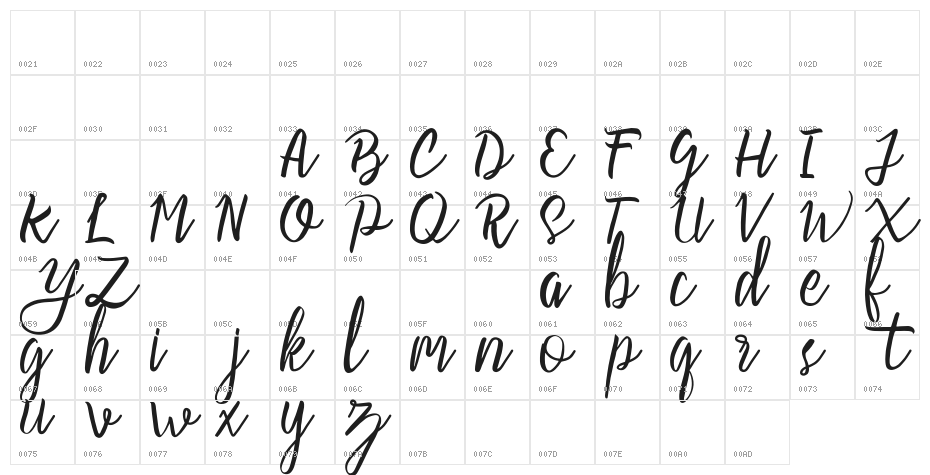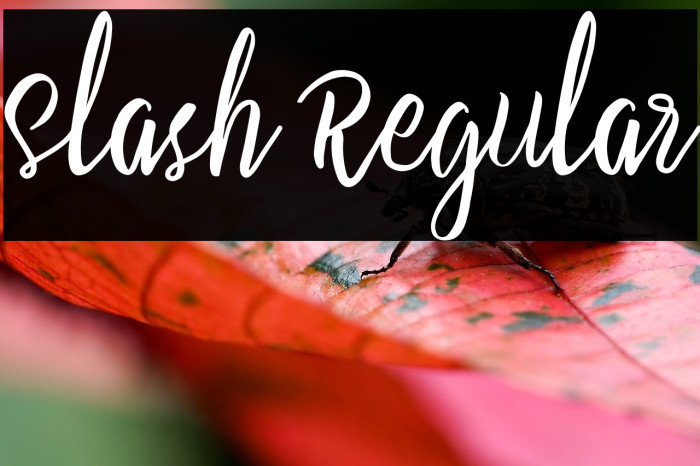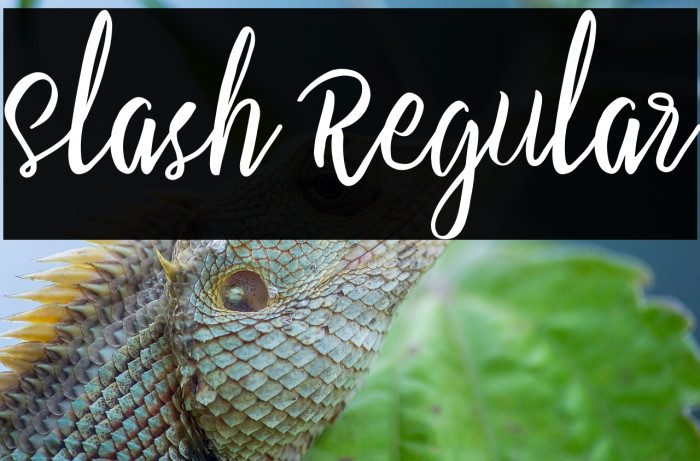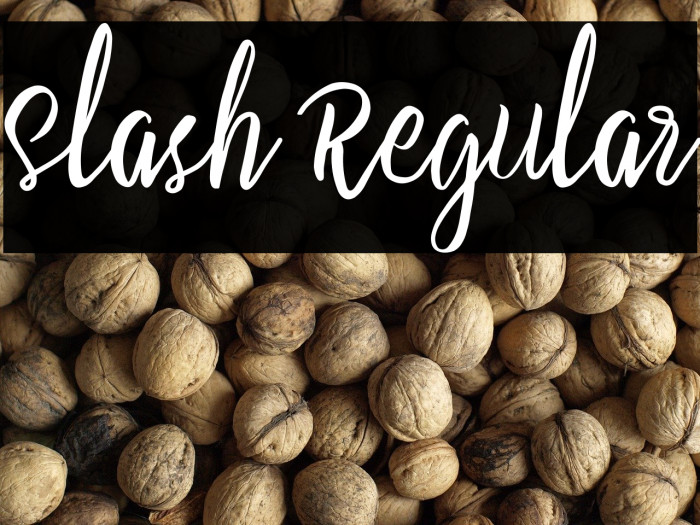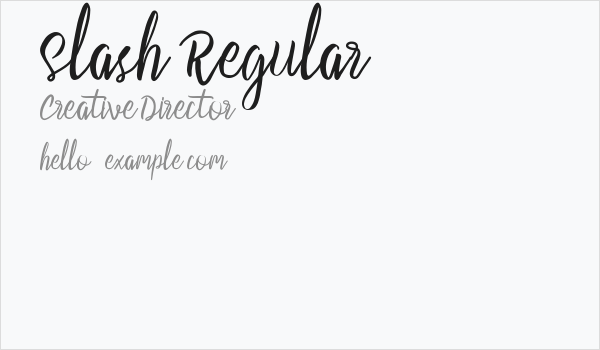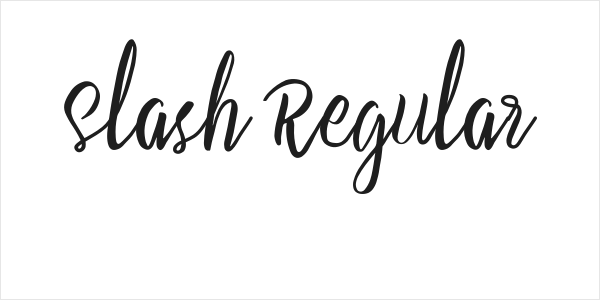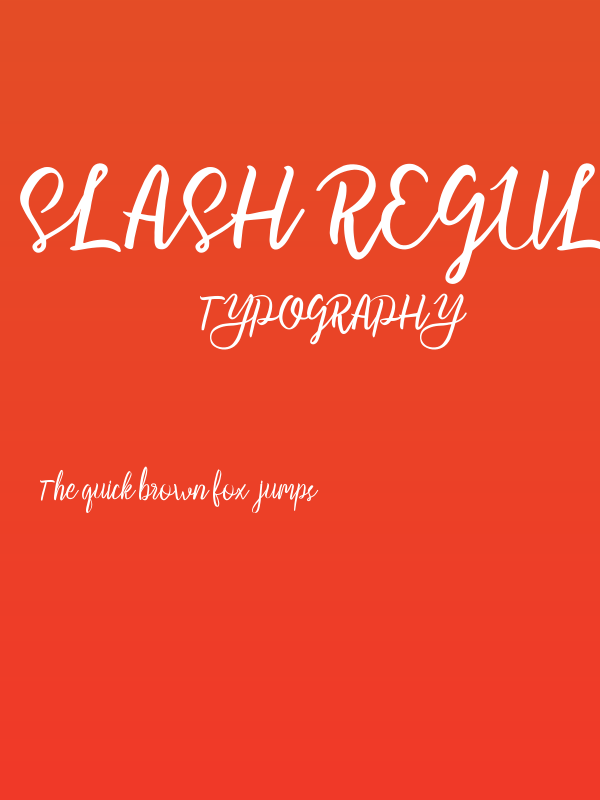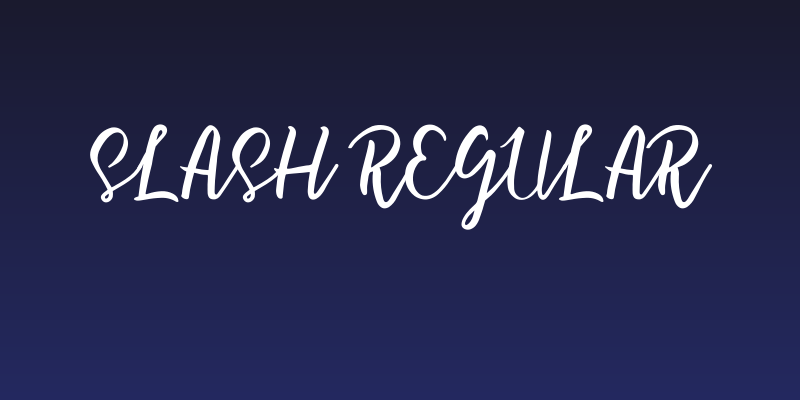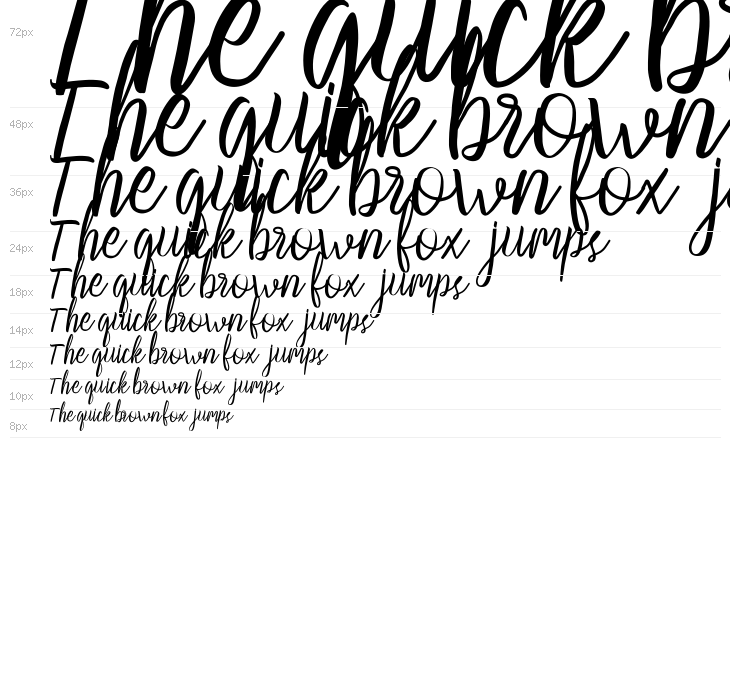
Slash Regular Font
Slash Regular Description
This font features a dynamic and fluid script style, characterized by its elegant and flowing letterforms. The strokes are smooth and connected, giving it a handwritten appearance that is both stylish and legible. The uppercase letters are slightly more formal, with a consistent slant and rounded edges, while the lowercase letters maintain a casual and approachable feel. The font's design is versatile, making it suitable for a variety of creative projects. Its bold presence ensures readability, while the script style adds a touch of sophistication.
| Use Case | Logos, Headlines, Invitations |
| Proposed Projects | Ideal for wedding invitations, greeting cards, branding, and logo design. |